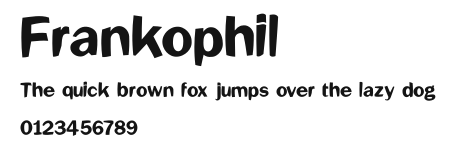
Frankophil.ttf is a modern, elegant sans-serif font designed for ultimate readability and visual harmony. Perfect for branding, headlines, web design, and print materials.